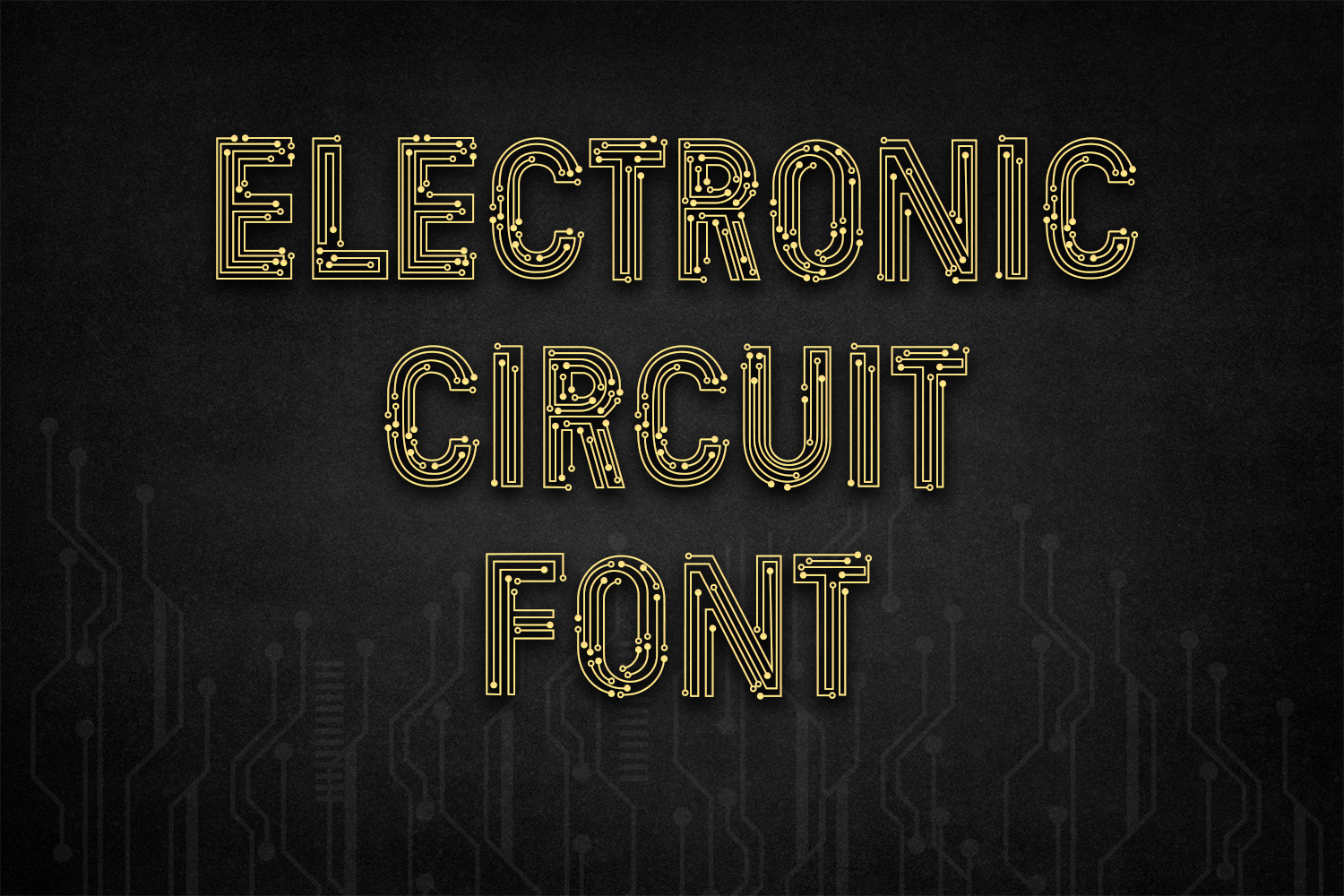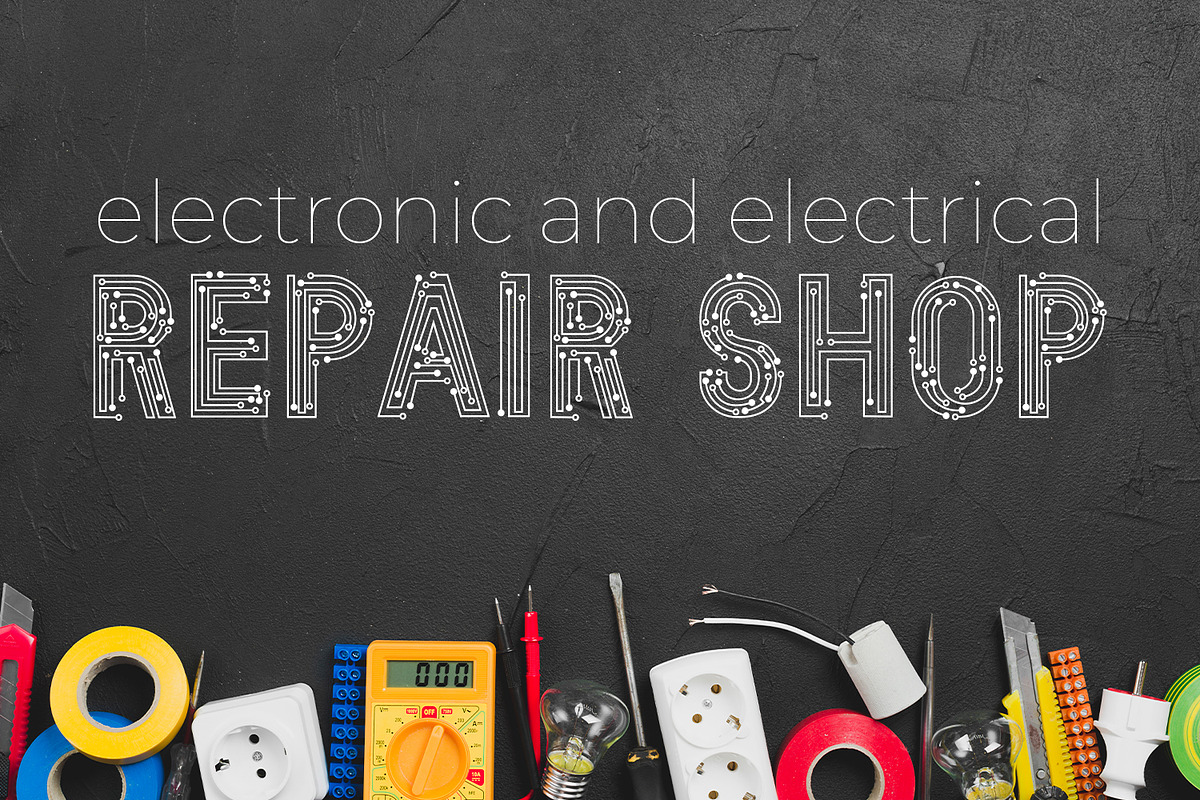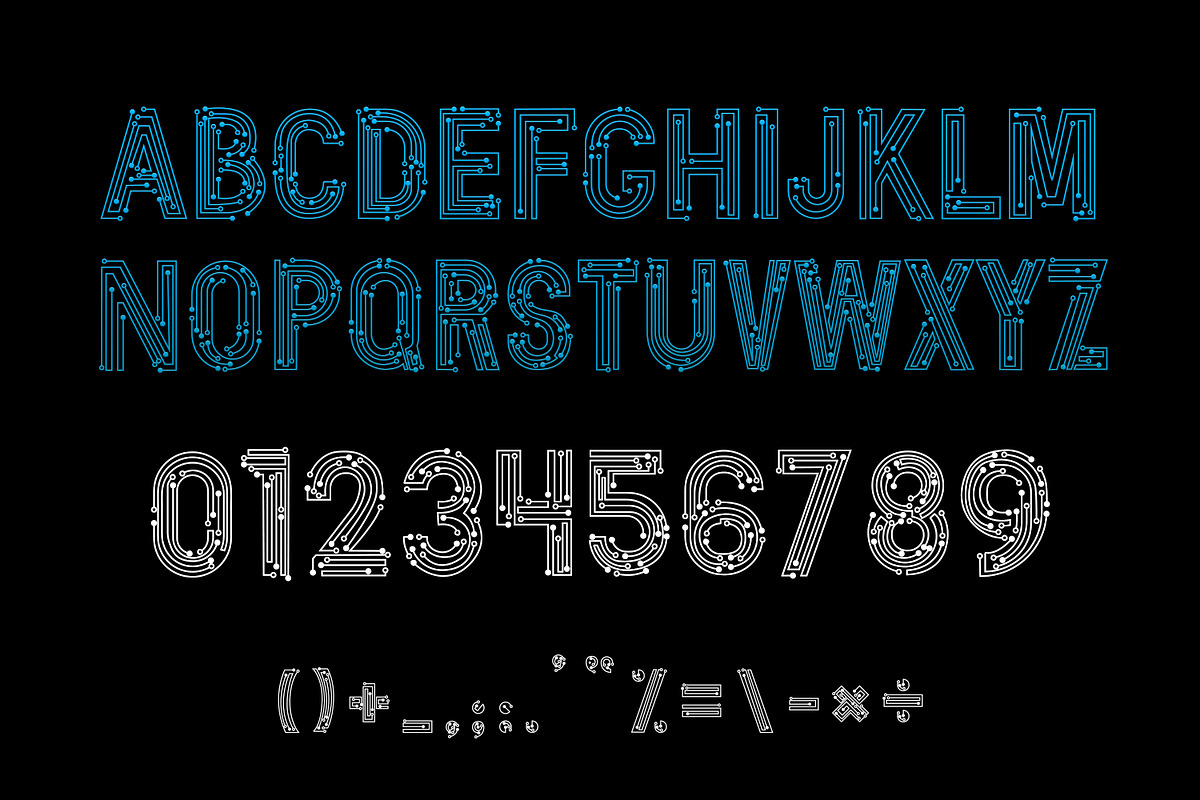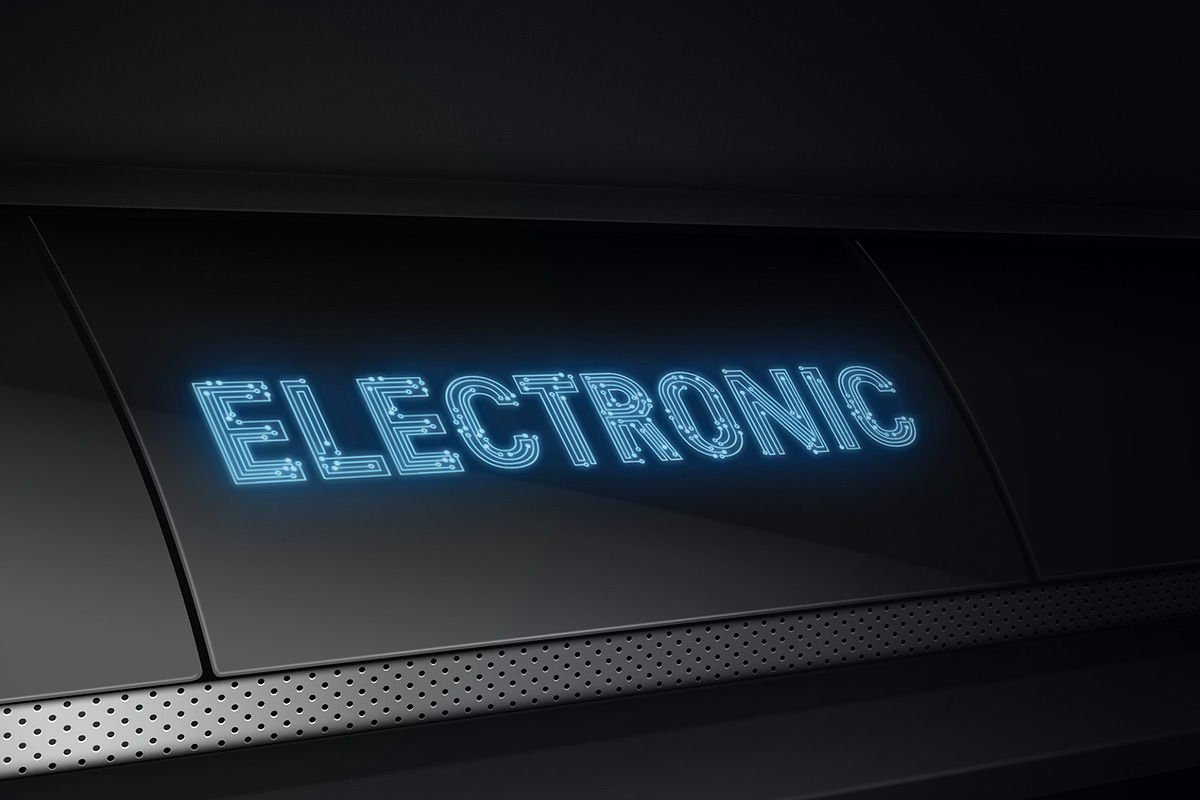
Electronic Circuit Font
Electronic Circuit is a bold and authentic display font. It celebrates abstract shapes in all their eclectic brilliance. Add this font to your creative ideas and notice how it will make them stand out.